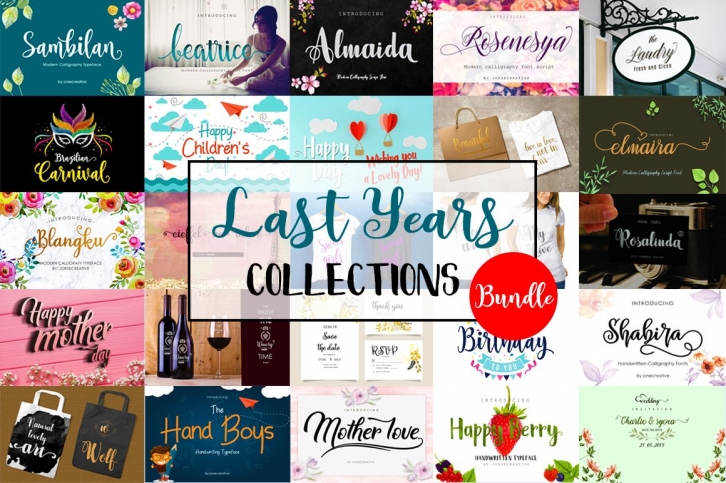
Last years Collections Bundle is a great font that was designed by Jorsecreative. Imagine the amount of combinations you can create using this font! The archive is 10.60 MB and it was released on August 17, 2018. Last years Collections Bundle looks beautiful on wedding invitations, greeting cards, logos, posters, labels, t-shirt designs, logos, business cards and is perfect for use in ink or watercolor works, fashion, magazines, packaging and food menus, children's books and more!